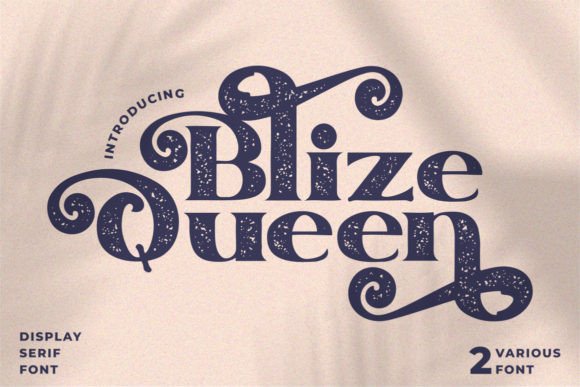
In a world of monotonous fonts, Blize Queen emerges as a radiant beacon of creativity, captivating the hearts of tattoo enthusiasts with its striking elegance and audacious charm. This serif font commands attention with its bold strokes and graceful curves, inviting you on an artistic journey that transcends the boundaries of ordinary typography.
Blize Queen is a font that speaks to the rebels, the dreamers, and the visionaries – those who dare to defy conventions and embrace their individuality. Its strong personality shines through in every letter, empowering your words with a sense of confidence and a touch of rebellion. Let your tattoos speak volumes with the boldness of Blize Queen, leaving an indelible mark on the canvas of your skin.
With Blize Queen, you're not just choosing a font; you're embarking on a voyage of self-expression, a journey where your creativity knows no limits. Its versatility extends beyond tattoos, making it a captivating choice for logos, posters, branding, and any creative project that demands a touch of audacity.
Blize Queen is more than just a font; it's an extension of your personality, a reflection of your unique style. Its beauty lies in its ability to transform ordinary words into captivating works of art, giving life to your stories and amplifying your messages with a touch of elegance and sophistication.